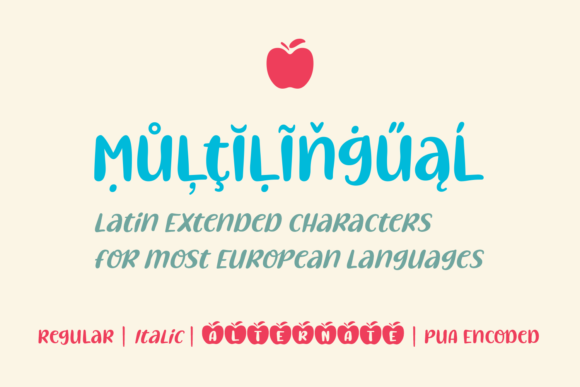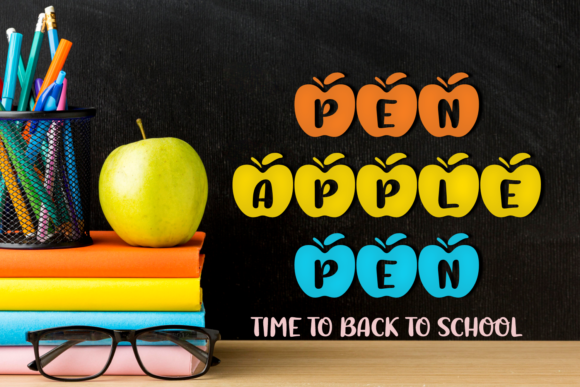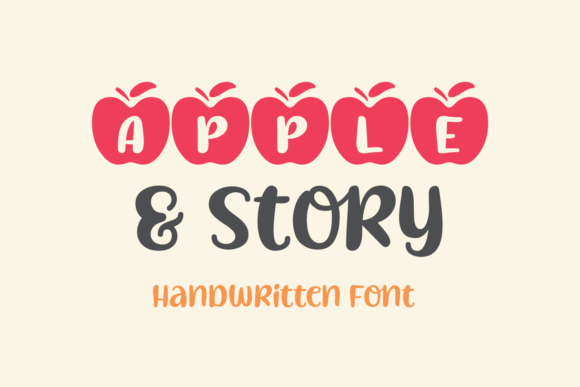
Introduction to Apple & Story Font
Apple & Story is a bold handwritten font, carefully handcrafted to become a true favorite.
Its casual charm makes it appear wonderfully down-to-earth, readable and, ultimately, incredibly versatile Apple & Story will look outstanding in any context, whether it’s being used on busy backgrounds or as a standalone headline.
Apple & Story Font offers exceptional quality and versatility, making it a valuable addition to your design toolkit. Whether you’re creating for personal projects or commercial use, Apple & Story Font delivers professional results.